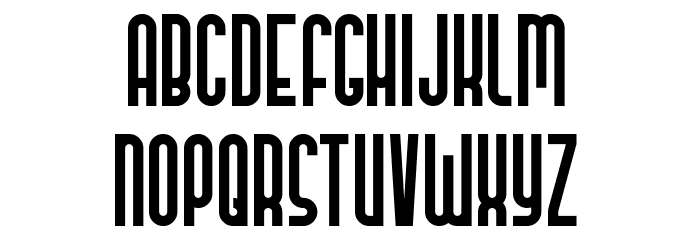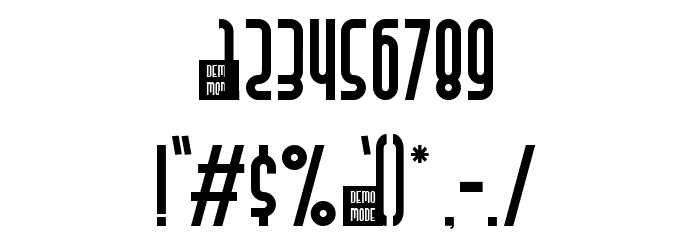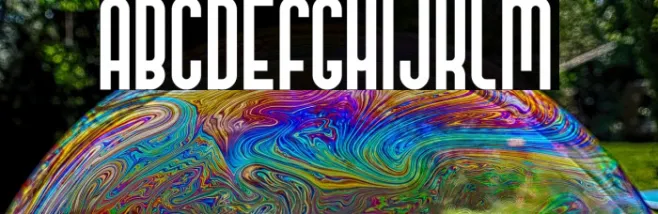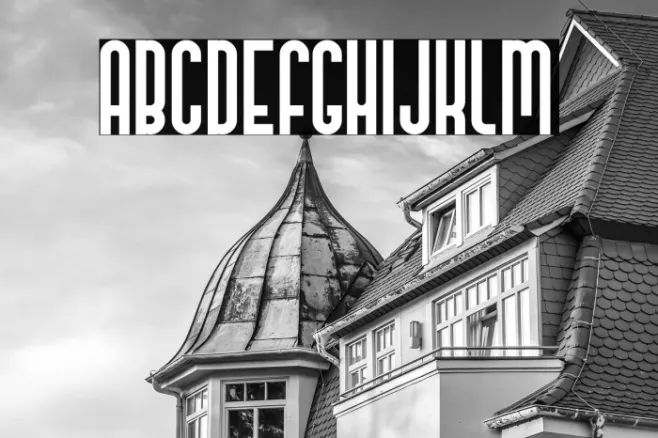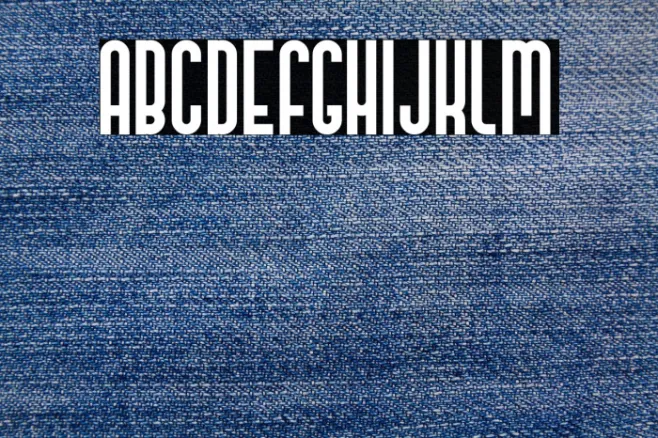
Juangkans Font
This font features a bold and condensed style with a modern and geometric aesthetic. The uppercase letters are tall and narrow, giving a strong vertical emphasis. The lowercase letters maintain the same condensed form, ensuring consistency throughout the typeface. The numbers are similarly styled, with a uniform height that aligns with the uppercase letters. Special characters are designed to match the overall bold and structured appearance, making them easily legible. The font's clean lines and lack of serifs contribute to its contemporary look, making it suitable for various design applications.
A bold, condensed, and modern geometric font.
- Font: Juangkans
- Proposed Projects: Ideal for branding, posters, headlines, and modern graphic designs.
- Category: Sans-Serif
- Character Spacing: Tight